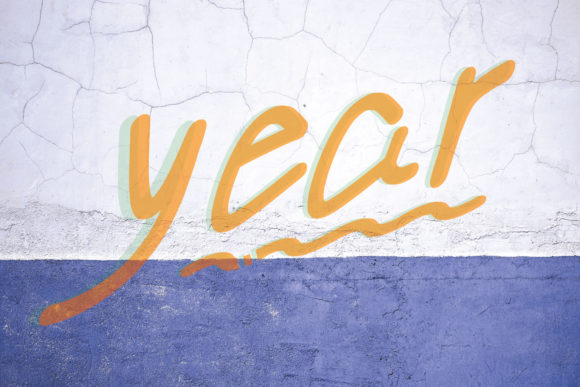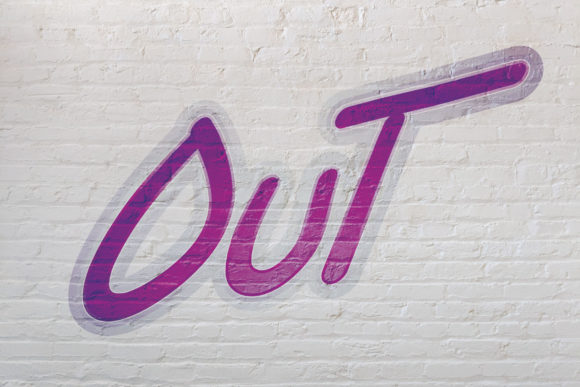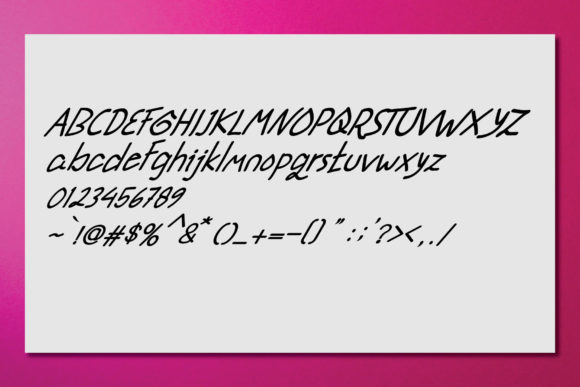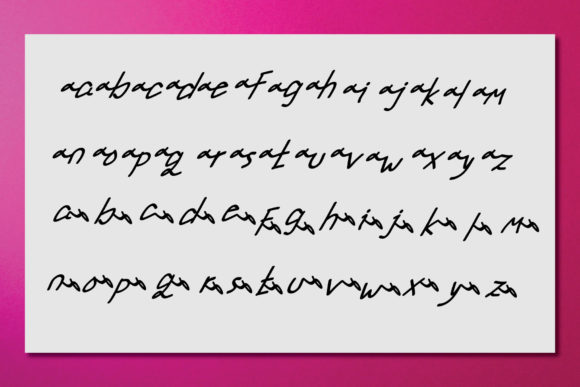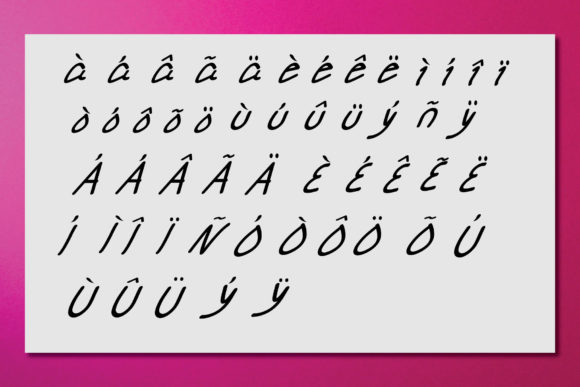
Passe Font
About Passe Font
Passe is a fun handwritten font with a unique style. Add it to your most creative ideas and notice how it makes them come alive!